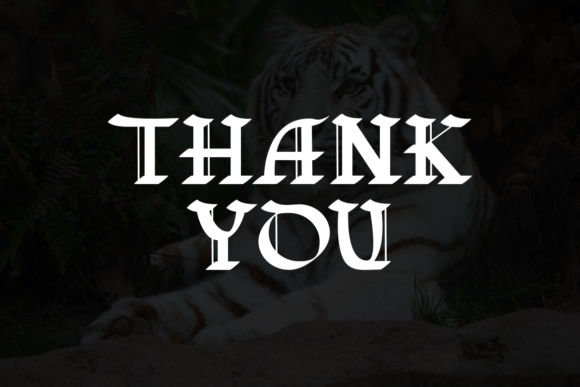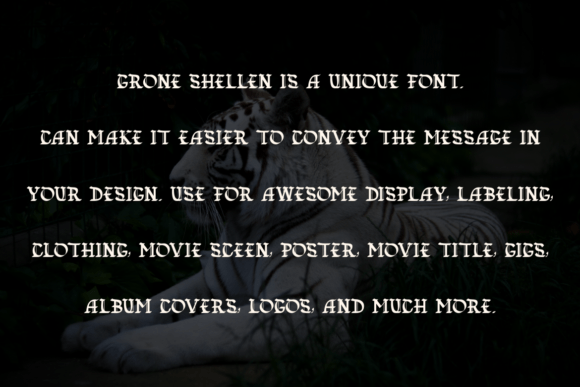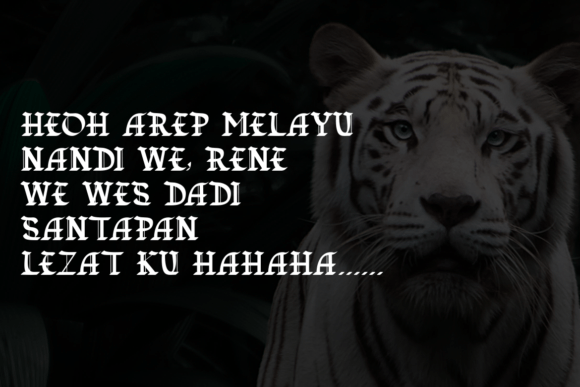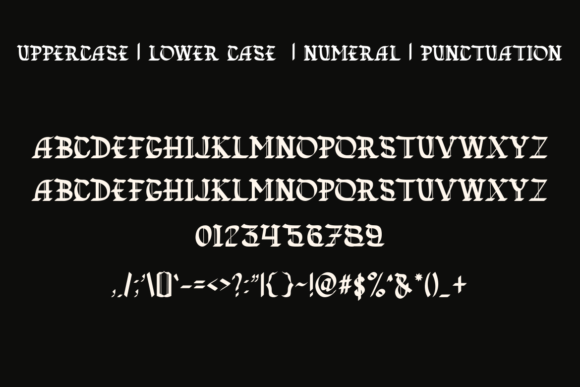
Introducing Grone Shellen Font: The Bold and Assertive Blackletter Font
In the world of typography, a good font can make all the difference in the success of a design project. Whether you’re a graphic designer, a crafty DIY enthusiast, or a digital artist, having the right font in your arsenal can elevate your creations from ordinary to extraordinary. That’s where Grone Shellen Font comes in – a bold and assertive blackletter font that’s sure to become an incredible asset to your font library.
The Power of Blackletter Fonts
Blackletter fonts have been a staple of typography for centuries, originating in the Middle Ages as a style of calligraphy. Characterized by their dramatic, ornate, and often Gothic-inspired letterforms, blackletter fonts exude a sense of elegance, sophistication, and drama. They’re perfect for designs that require a touch of luxury, mystery, or nostalgia.
What Makes Grone Shellen Font Special
Grone Shellen Font is a modern take on the traditional blackletter style, with a bold and assertive personality that’s hard to ignore. Its unique letterforms are designed to make a statement, with dramatic flourishes and intricate details that add depth and character to any design. Whether you’re working on a logo, a poster, a book cover, or a digital project, Grone Shellen Font is sure to grab attention and leave a lasting impression.
Key Features of Grone Shellen Font
- Bold and Assertive: Grone Shellen Font is designed to make a statement, with bold and assertive letterforms that demand attention.
- Intricate Details: The font features intricate details and flourishes that add depth and character to any design.
- Versatile: Grone Shellen Font can be used for a wide range of design projects, from logos and posters to book covers and digital art.
- High-Quality: The font is designed to be high-quality and scalable, ensuring that it looks great in any size or resolution.
How to Use Grone Shellen Font in Your Designs
Grone Shellen Font is incredibly versatile, and can be used in a variety of design projects. Here are a few ideas to get you started:
- Logos and Branding: Use Grone Shellen Font to create a bold and memorable logo that makes a statement.
- Posters and Flyers: Add a touch of drama and elegance to your posters and flyers with Grone Shellen Font.
- Book Covers: Use Grone Shellen Font to create a eye-catching book cover that stands out on the shelves.
- Digital Art: Experiment with Grone Shellen Font in your digital art projects, such as illustrations, animations, and graphics.
Tips and Tricks for Working with Grone Shellen Font
Here are a few tips and tricks to help you get the most out of Grone Shellen Font:
- Experiment with Sizes: Grone Shellen Font looks great in a variety of sizes, from small and delicate to large and bold.
- Play with Colors: Try pairing Grone Shellen Font with different colors and textures to add depth and interest to your designs.
- Mix and Match: Combine Grone Shellen Font with other fonts and design elements to create a unique and eye-catching look.
In conclusion, Grone Shellen Font is a bold and assertive blackletter font that’s sure to become a valuable addition to your font library. With its intricate details, versatile design, and high-quality construction, Grone Shellen Font is perfect for designers and crafters looking to add a touch of drama and elegance to their projects. So why wait? Download Grone Shellen Font today and start creating stunning designs that make a statement!